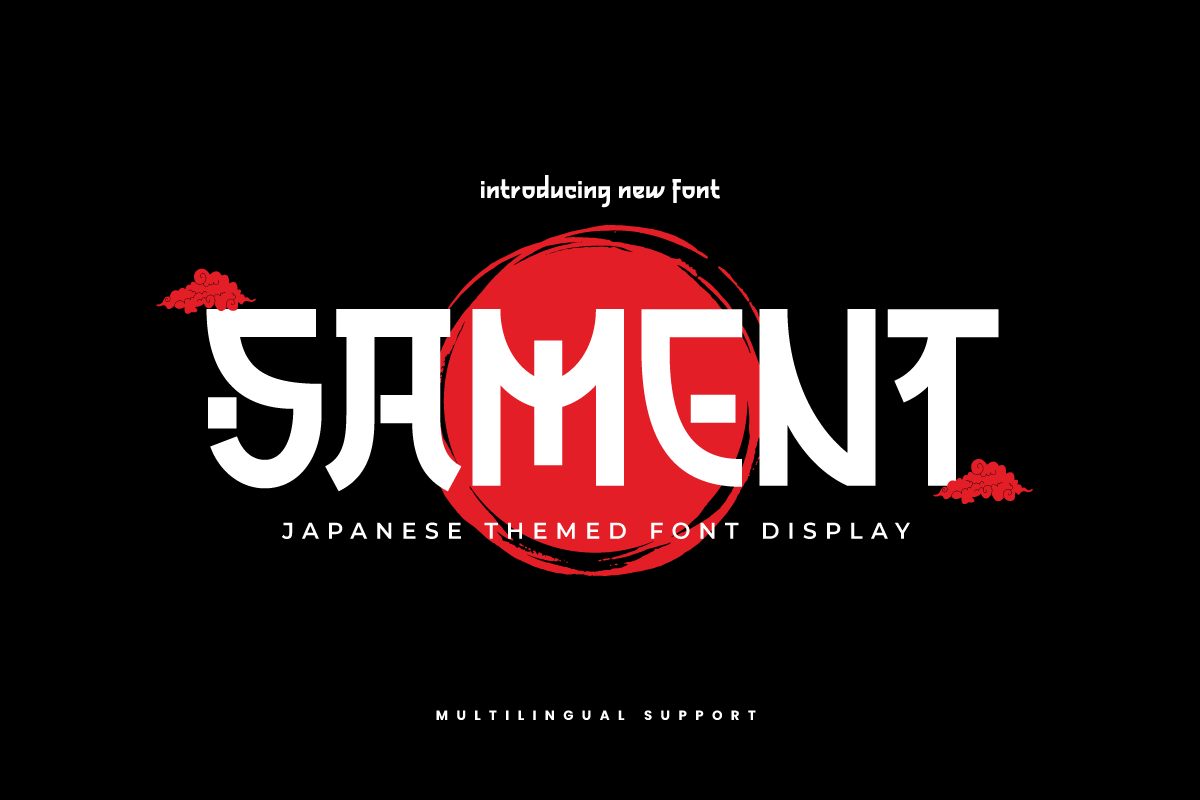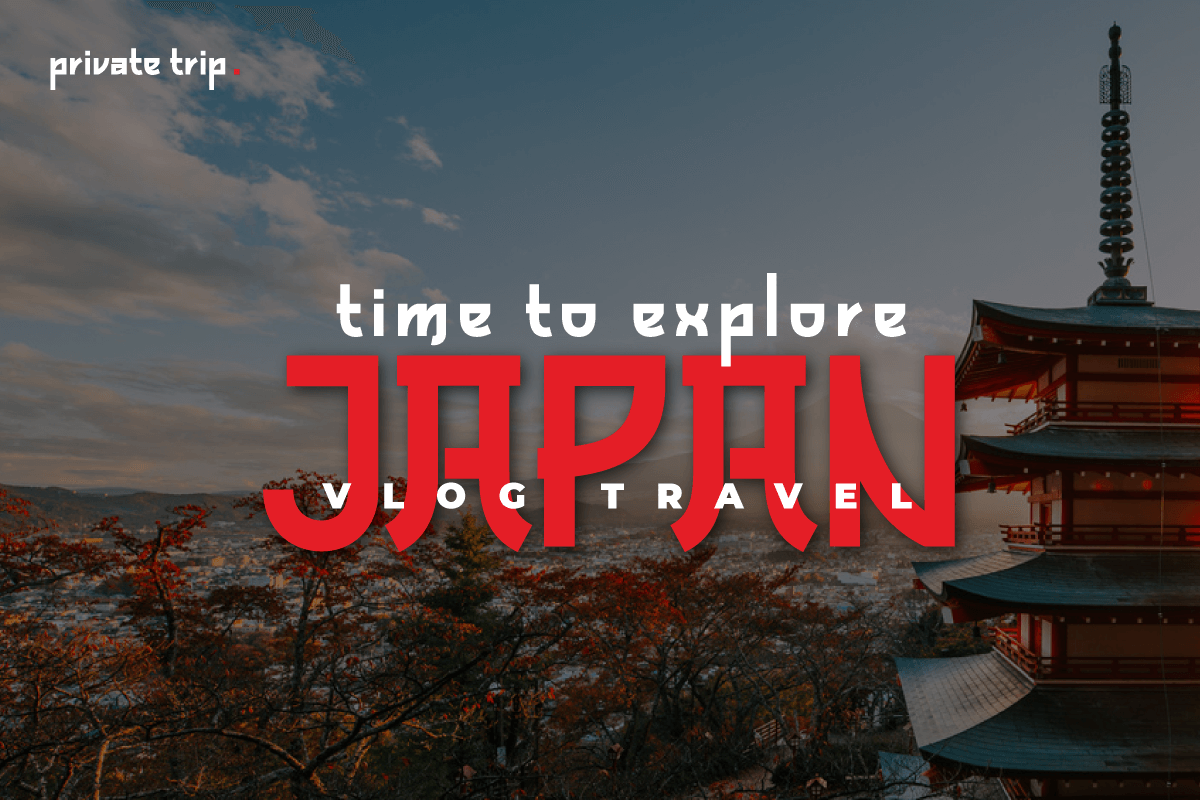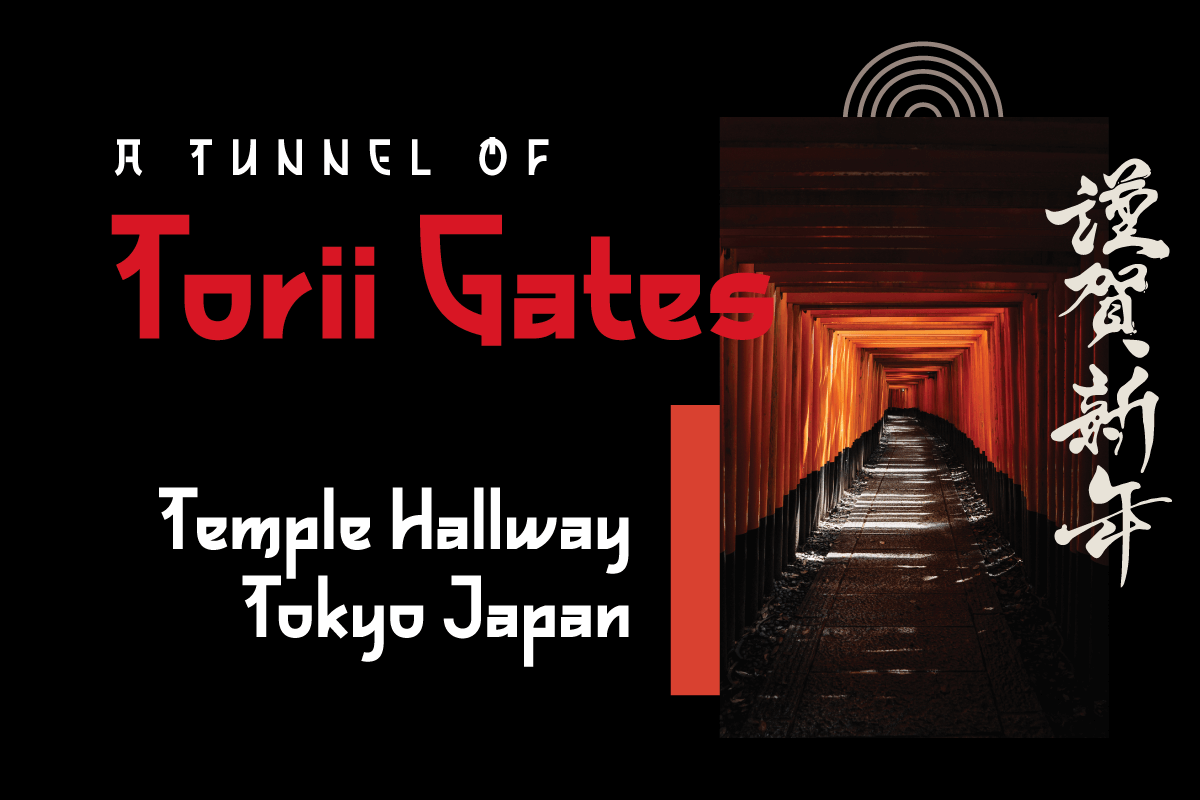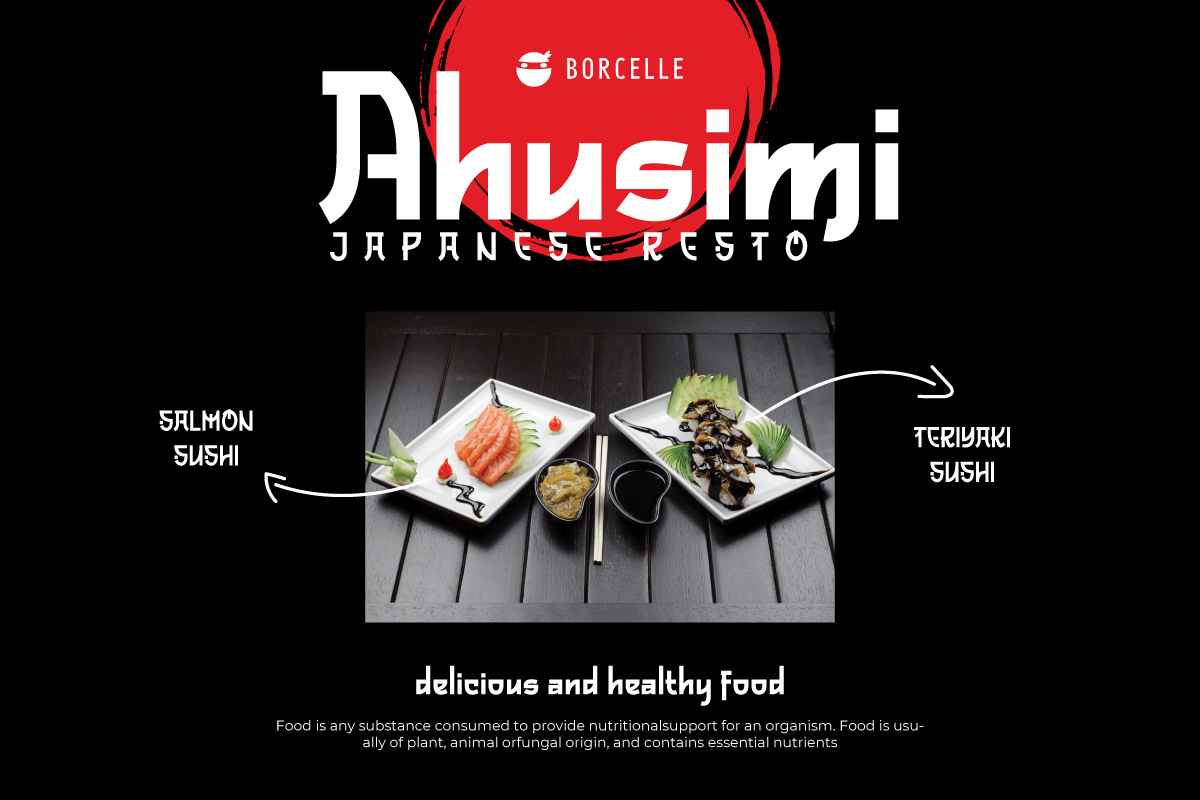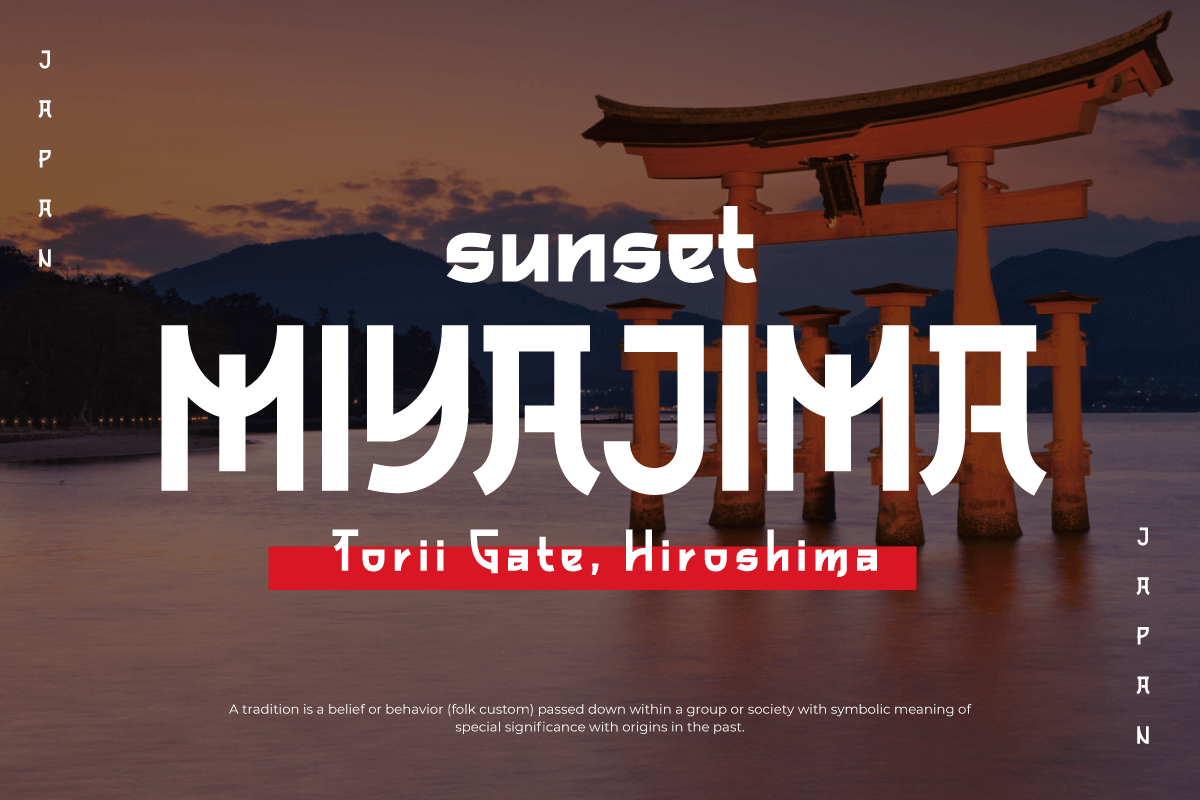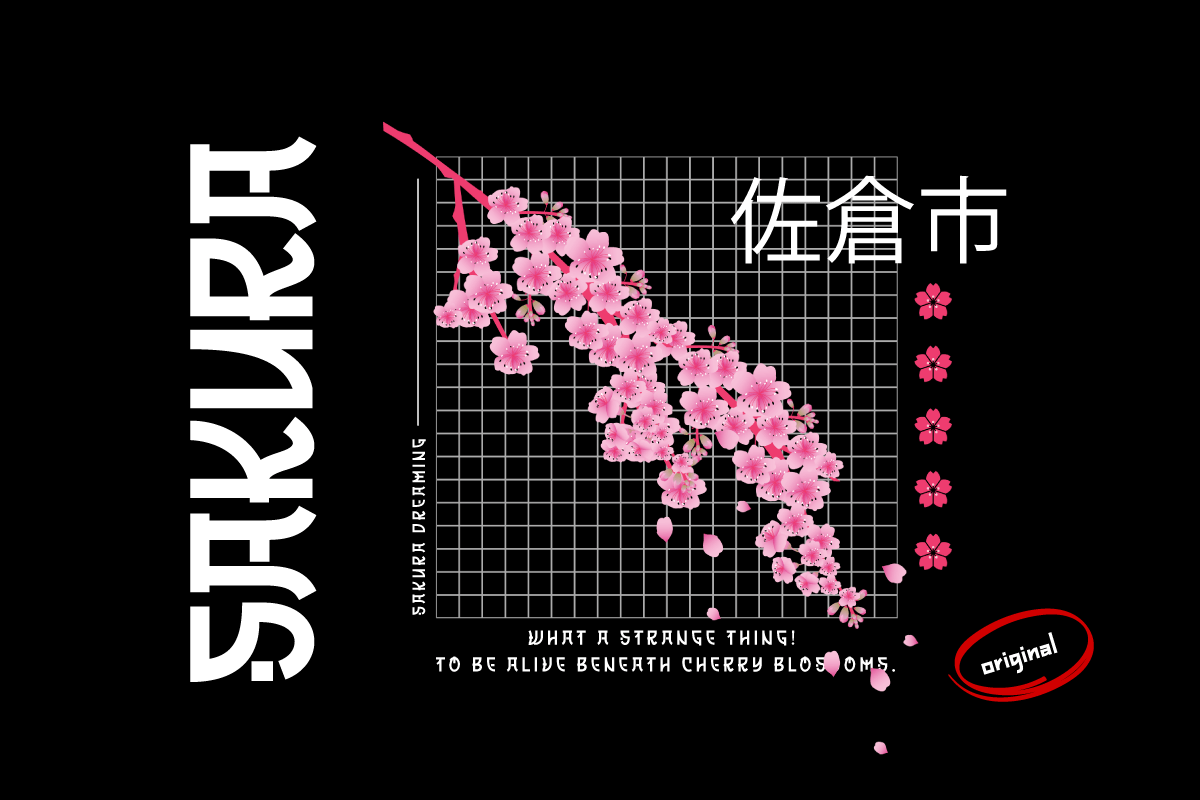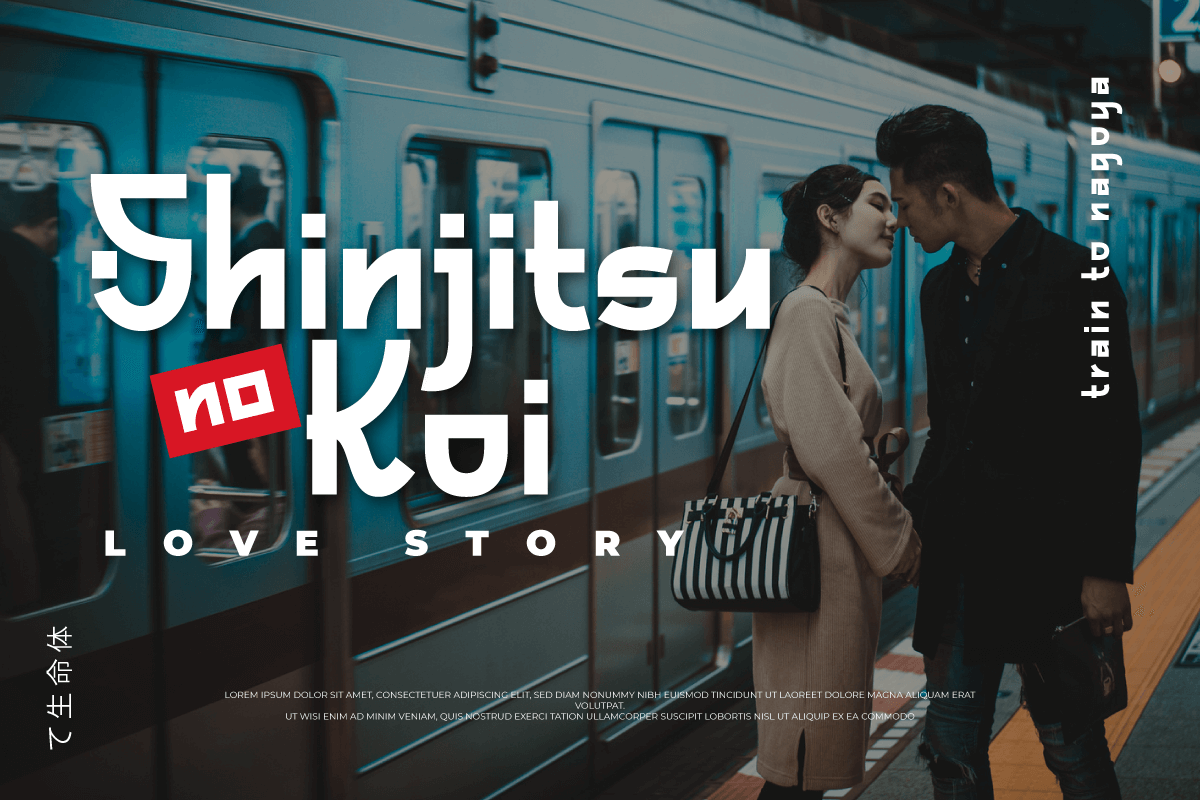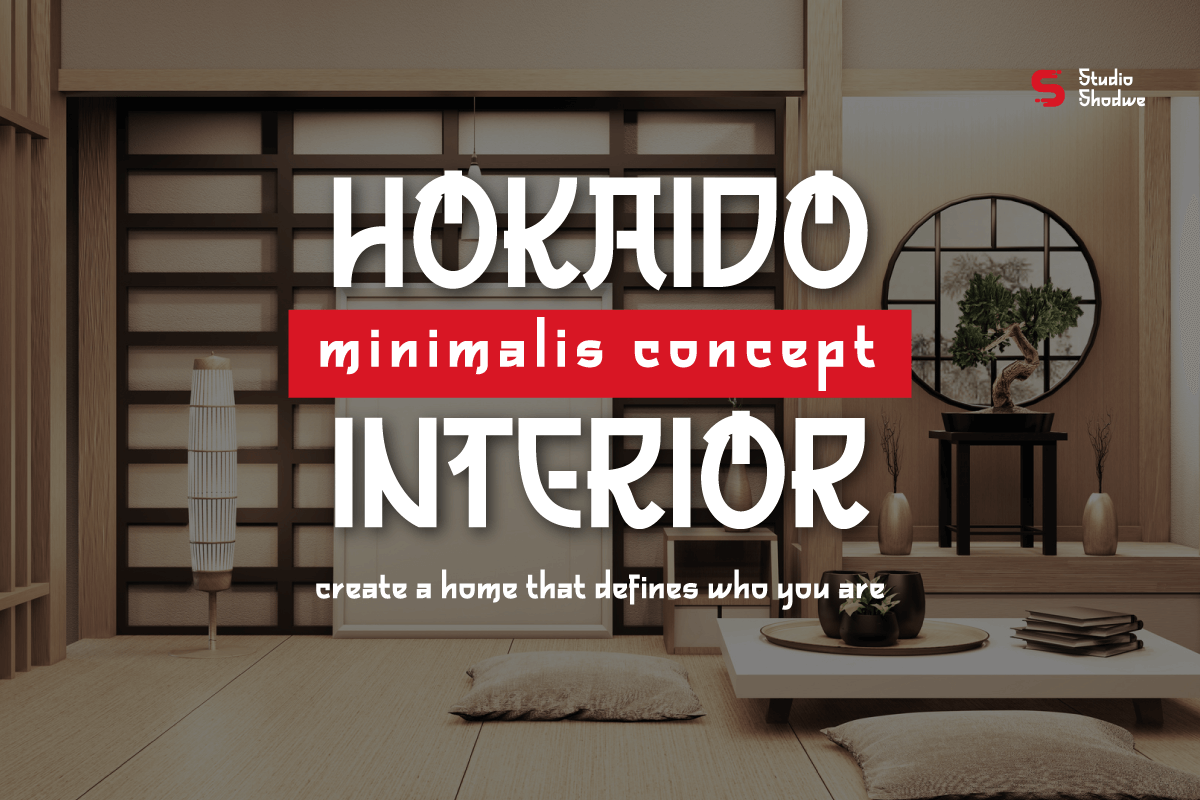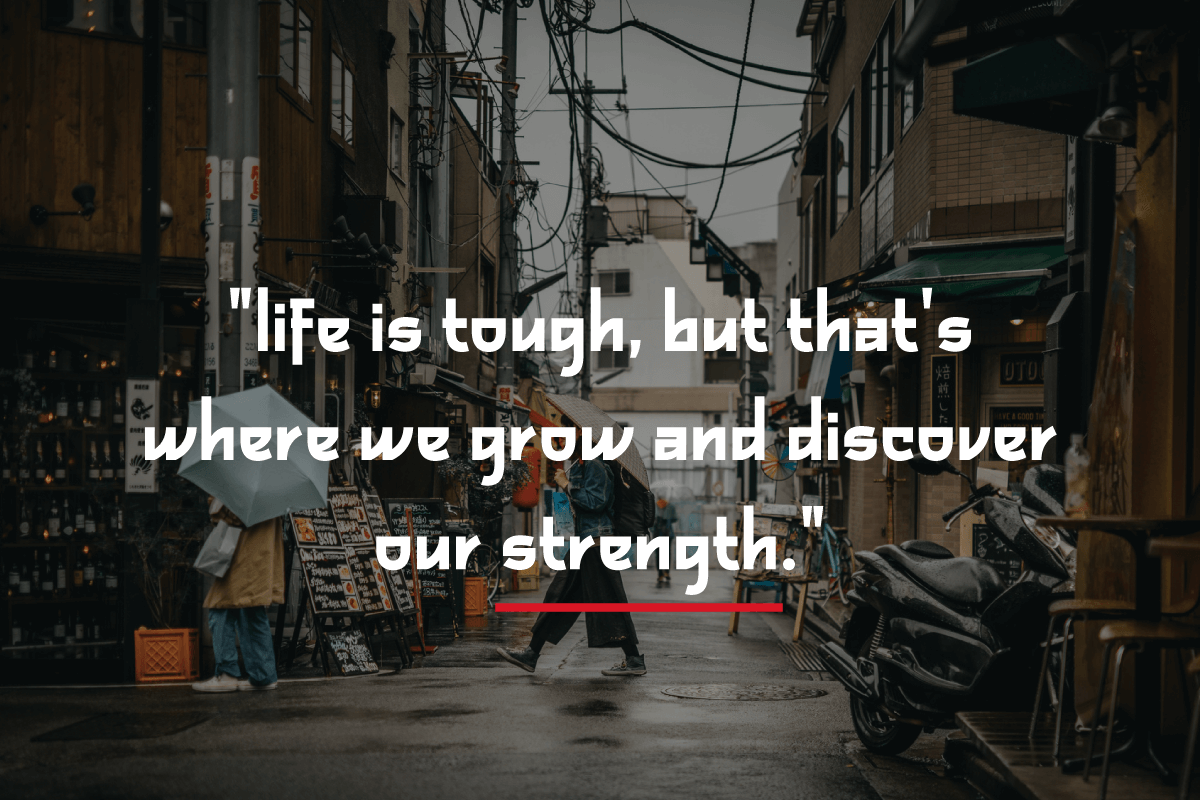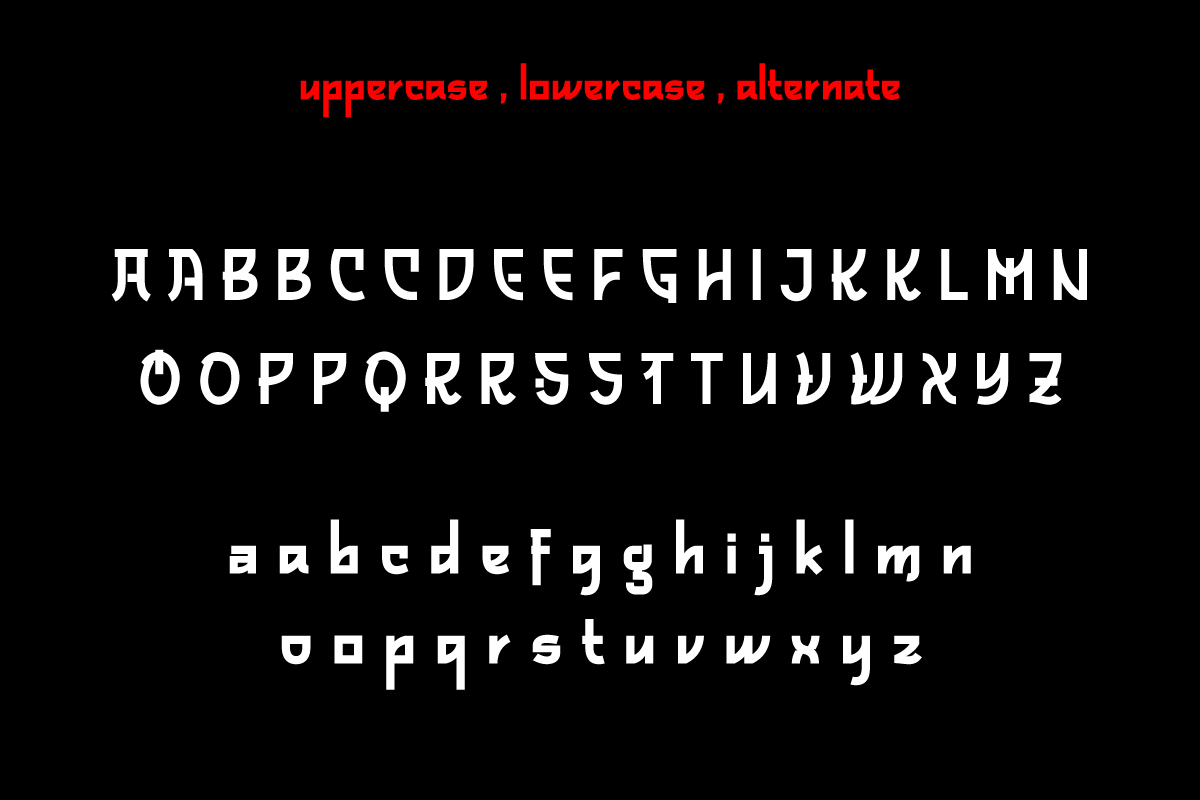
SAMENT – Japanese Style Font
Sament is a Japanese Style typeface that is ideal for projects that require a distinctly Japanese and Asian touch. This typeface will add uniqueness and creativity to your work with its exquisite style and eye-catching appearance.
With appealing characters and inspiration from Japan’s rich culture, the Sament typeface combines a traditional touch with a modern vibe. Each figure is designed with care and refinement, creating an alluring environment and highlighting the richness of Japan’s cultural history.
You may add an authentic and appealing vibe to your promotional materials, poster designs, websites, and many other projects by utilizing the Sament font. This font will leave a lasting impact and quickly capture the attention of potential customers.
Make your project stand out by using Sament as the main typeface. With its rich richness and distinct style, this typeface provides a visually pleasing experience. With Sament, your designs will create an exceptional experience, instantly engaging potential buyers.